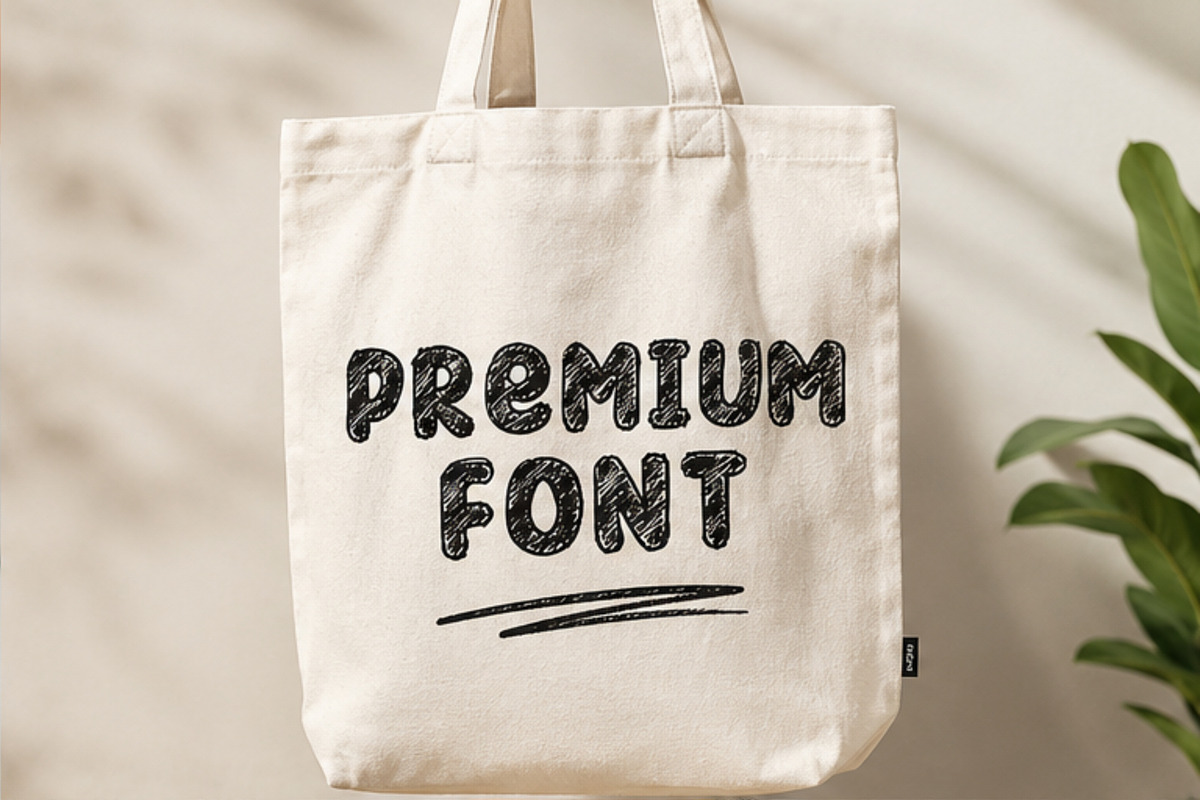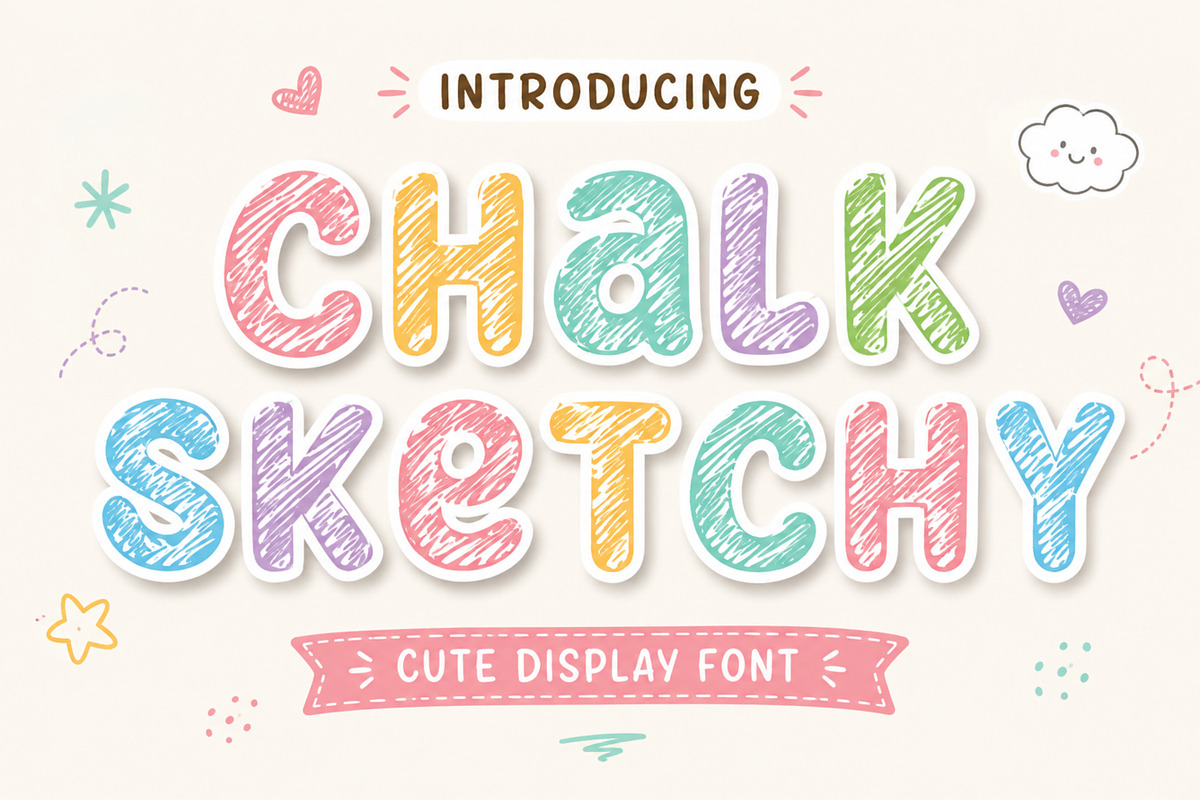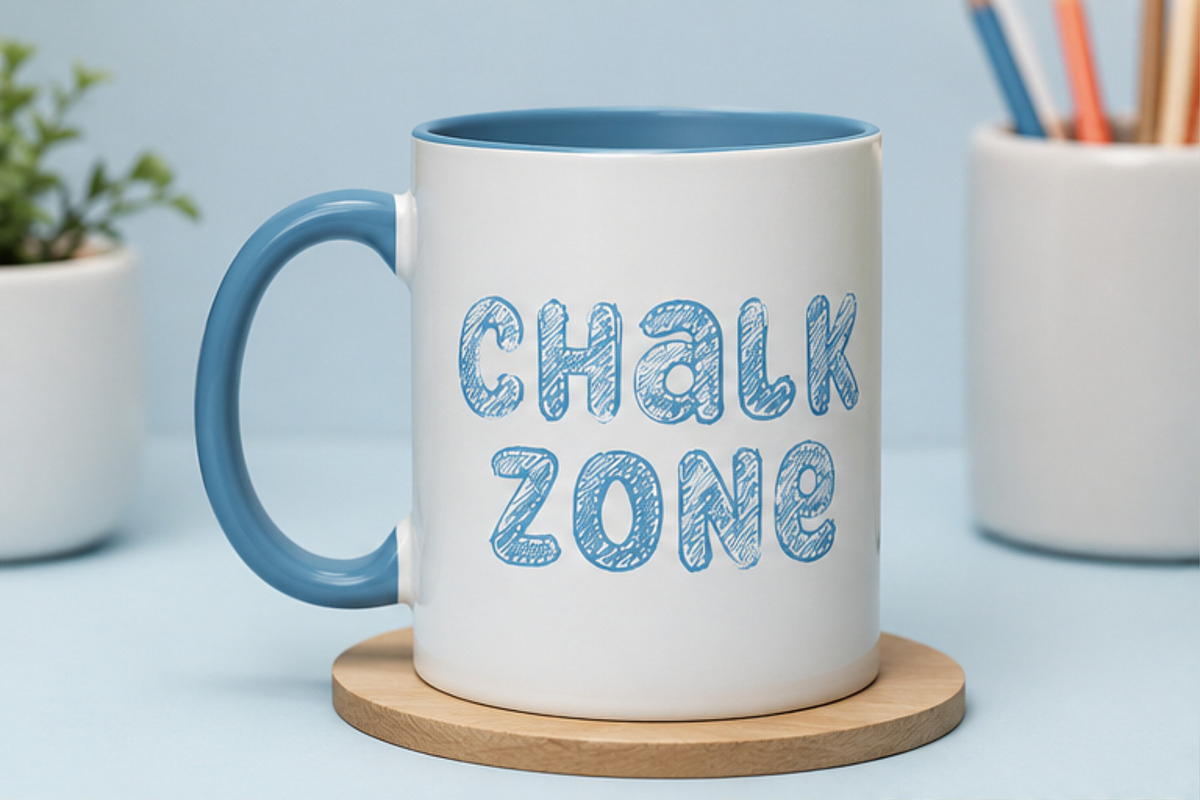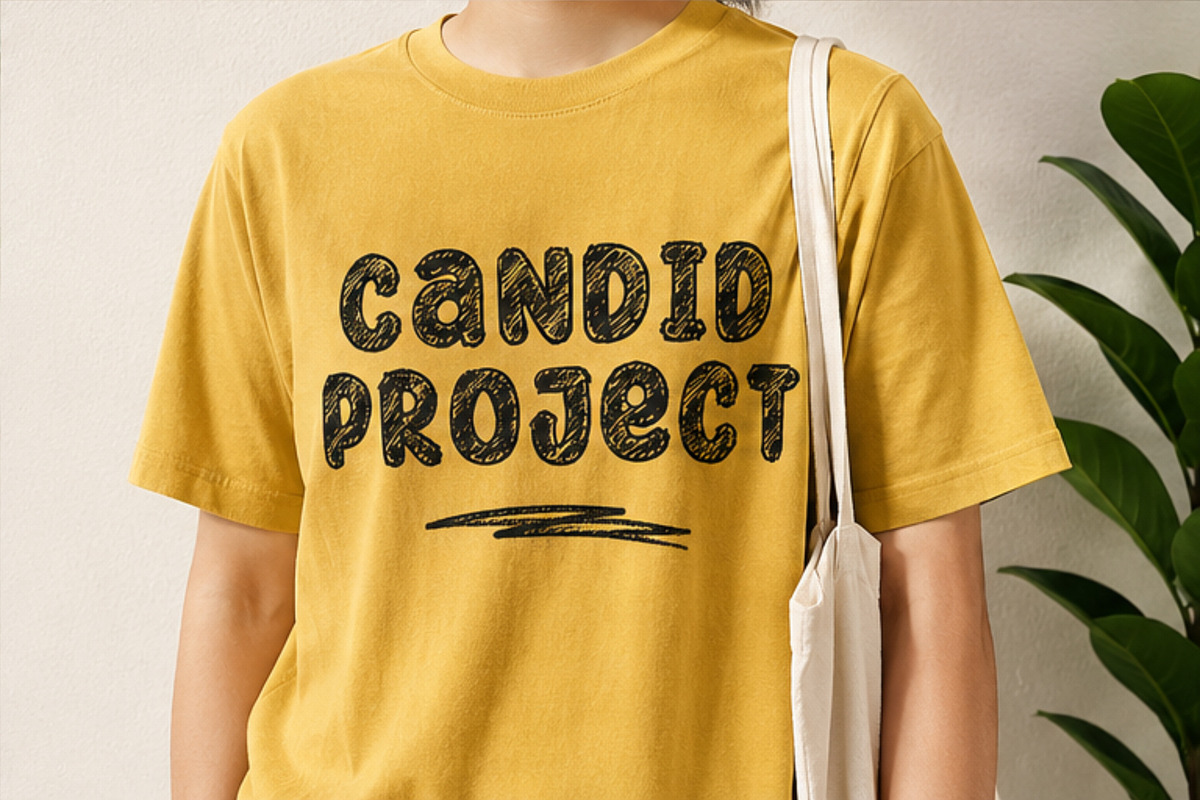
Chalk Sketchy – Cute Hand Drawn
Chalk Sketchy is a bold and playful display font created with a charming hand-drawn chalk texture. Its imperfect sketch details give your typography a fun, casual, and handmade character.
This versatile font is ideal for designers, crafters, small businesses, and creative makers looking to add a youthful and artistic touch to their projects.